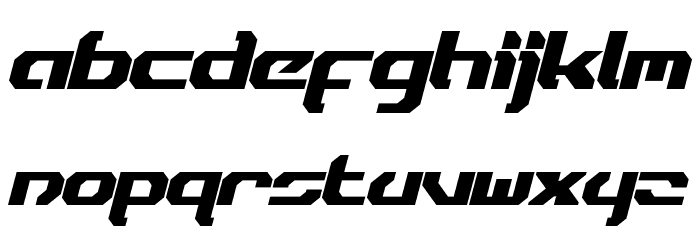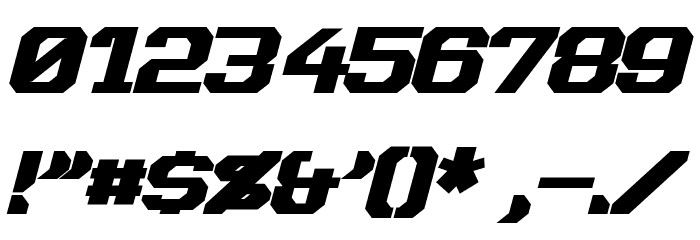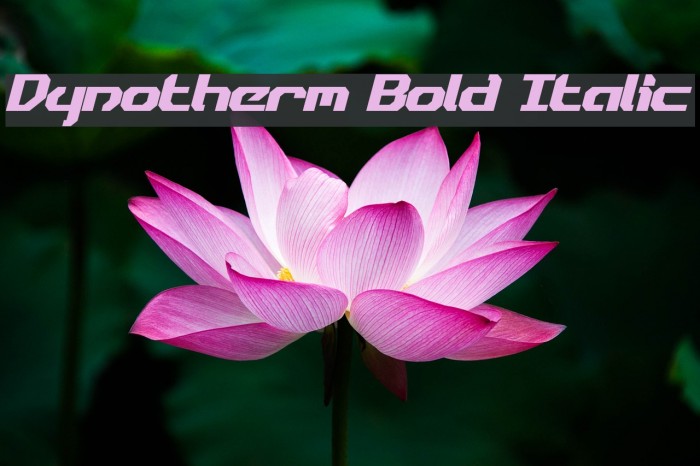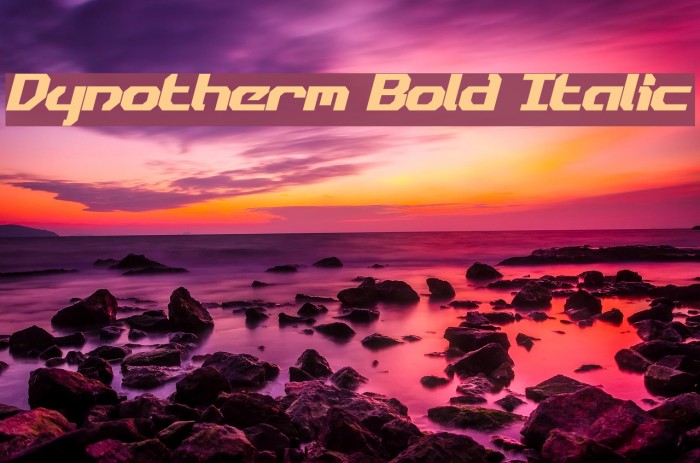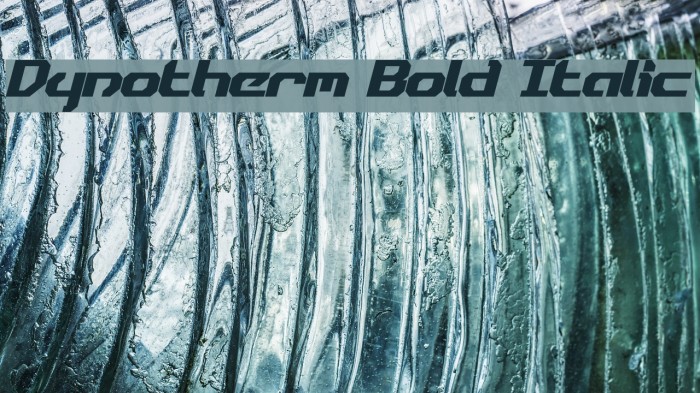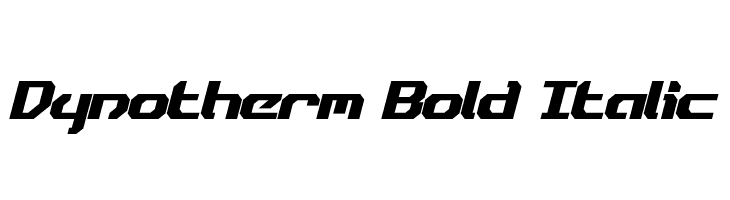
Dynotherm Bold Italic Font
This font is a bold and italicized typeface with a dynamic and futuristic appearance. The characters are angular and geometric, featuring sharp edges and a sense of movement. The uppercase and lowercase letters maintain a consistent style, with the lowercase letters slightly more compact. Numbers and special characters follow the same design principles, ensuring uniformity across all glyphs. The font's bold weight and italic slant give it a strong presence, making it suitable for attention-grabbing designs. Its unique style suggests a modern and tech-inspired aesthetic, ideal for projects that require a bold statement.
A bold, italicized, and futuristic font with angular, geometric characters.
- Font: Dynotherm Bold Italic
- Weight: Bold Italic
- Proposed Projects: Ideal for technology branding, sci-fi themed designs, video game titles, and dynamic posters.